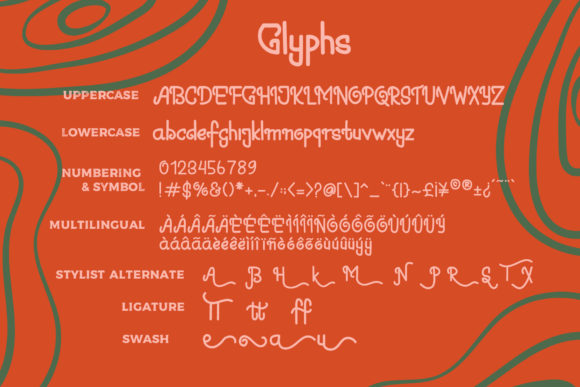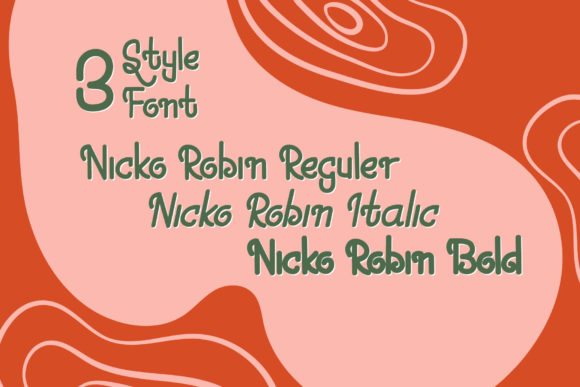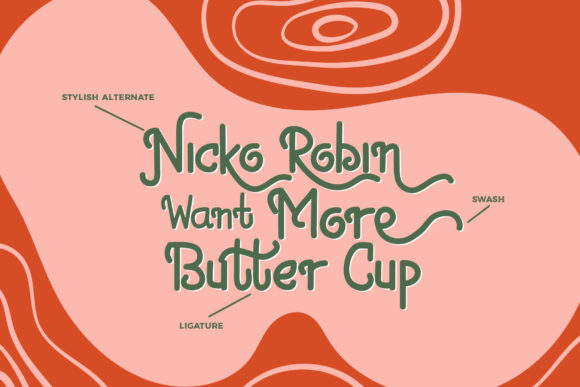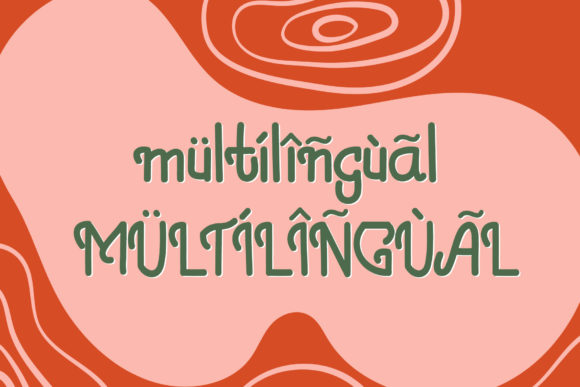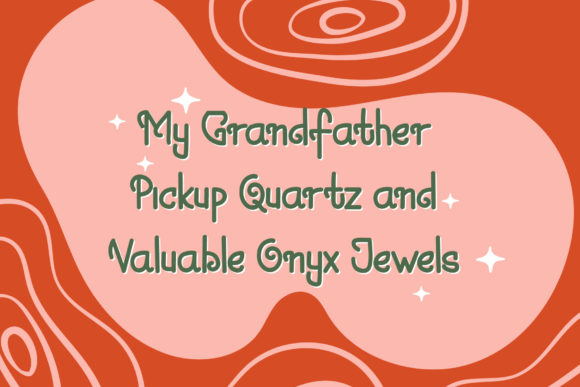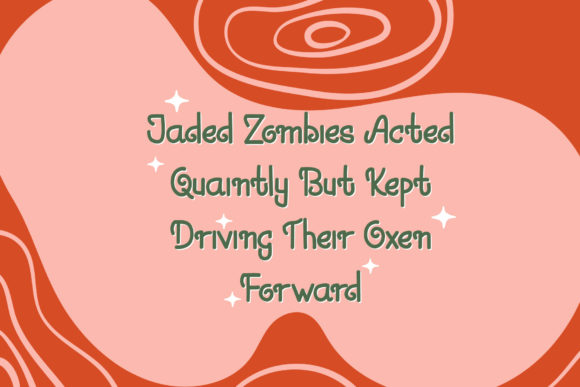
Introduction to Nicko Robin Font
Have you ever stared at a blank page, eager to bring your creative vision to life, only to be held back by the perfect font? We’ve all been there, searching for that elusive combination of style and sophistication to elevate our projects to the next level. That’s where the Nicko Robin Font comes in – a masterfully crafted display font that’s sure to become your go-to design companion.
With its unique blend of elegance and playfulness, the Nicko Robin Font is a valuable asset for designers looking to add a touch of personality to their creative projects. Whether you’re working on a high-quality logo, a free download brochure, or a transparent background website, this font is sure to help you stand out from the crowd.
Key Features of Nicko Robin Font
- Unique, cursive script style suitable for creative projects requiring a high-quality, handwritten look.
- Perfect for use in various creative projects, including invitations, logos, and editorial content.
Honest Review: Nicko Robin Font
I recently had the chance to work with the Nicko Robin Font, and I must say it’s been a game-changer for my creative projects. This high-quality font has a unique and elegant design that adds a touch of sophistication to any layout.
Here are some of the things that work well with the Nicko Robin Font: ✨
- Easy to use
- Works well in both digital and print projects
As with any design resource, there are some limitations to be aware of: ⚠️
- Not suitable for all types of projects (e.g. bold, display fonts)
- May require additional styling for certain effects
Overall, I’m really impressed with the Nicko Robin Font. It’s a valuable addition to any designer’s toolkit, and I highly recommend it for anyone looking for a high-quality, free download font.
Tips for Getting the Most Out of Nicko Robin Font
Use the Nicko Robin Font on a transparent background to create a modern and sleek design. Experiment with different font sizes and styles to add depth and visual interest to your design.
The Nicko Robin Font is a versatile design resource that can be used in a variety of creative projects, including logos, branding materials, and social media graphics. Its high quality and transparent background make it an ideal choice for designers looking to create a professional and modern look.